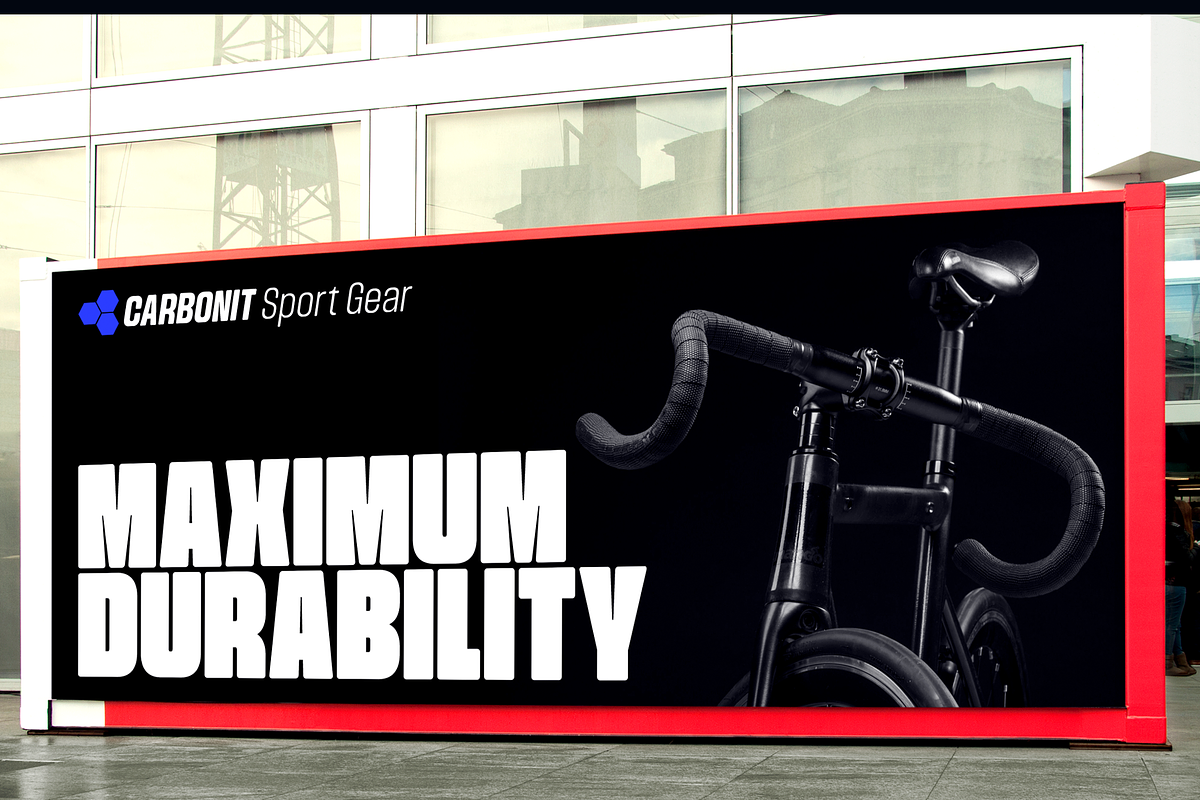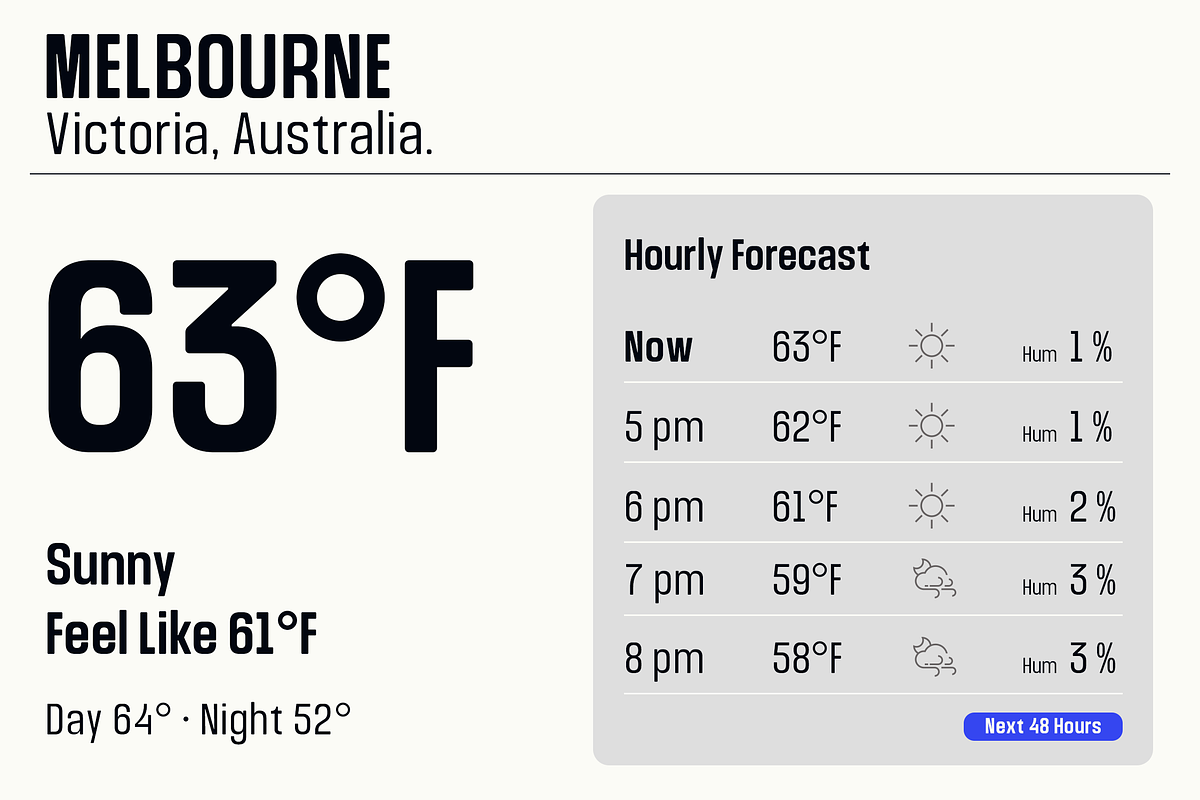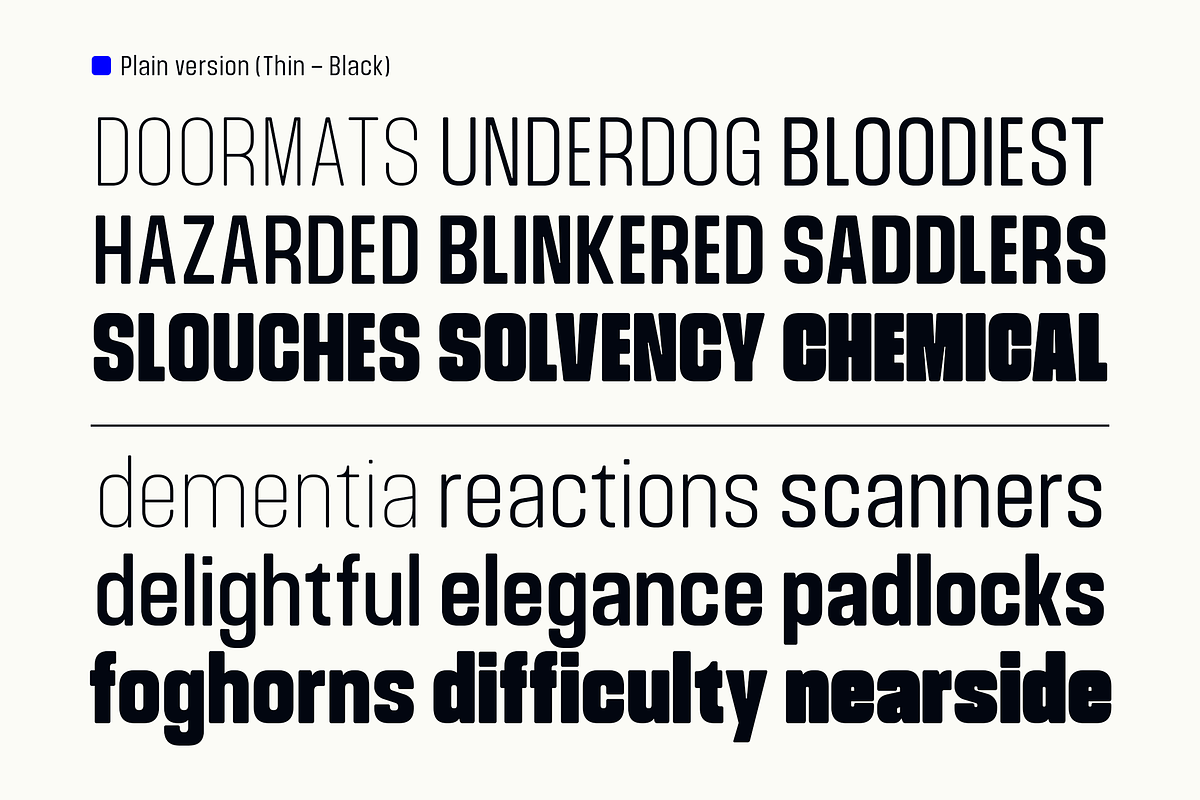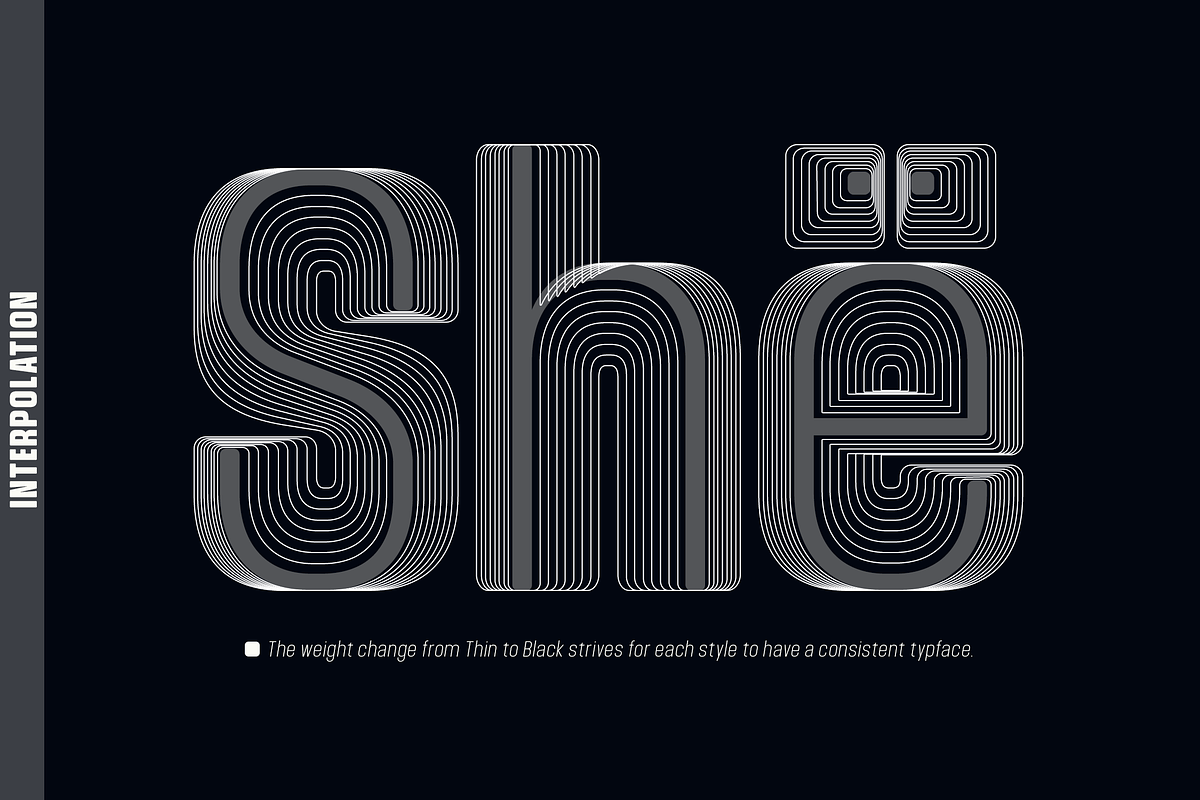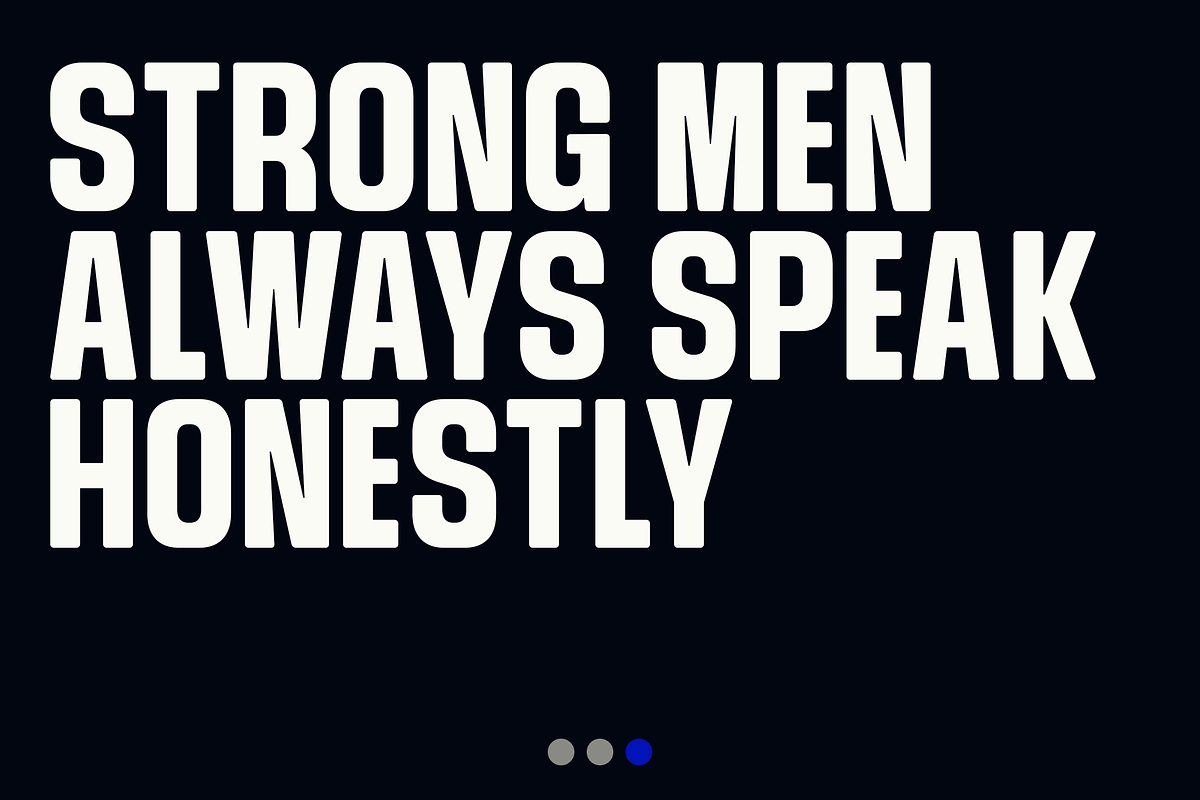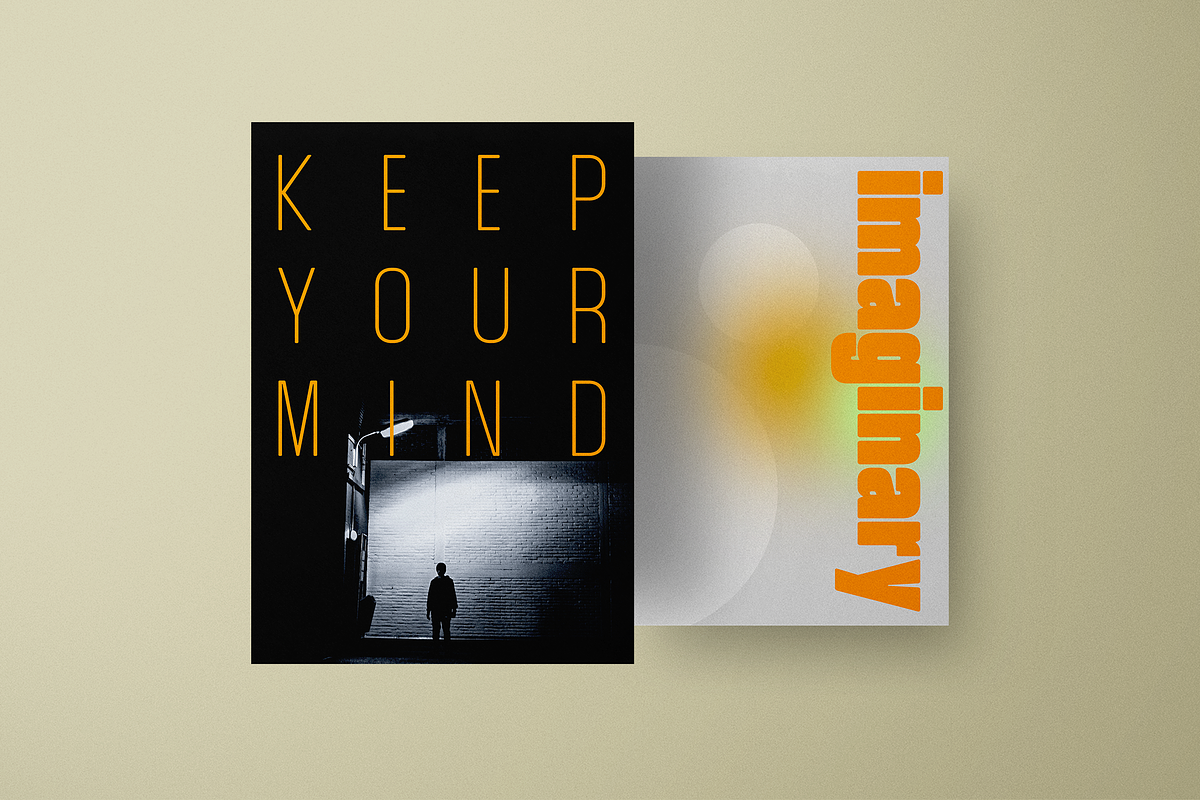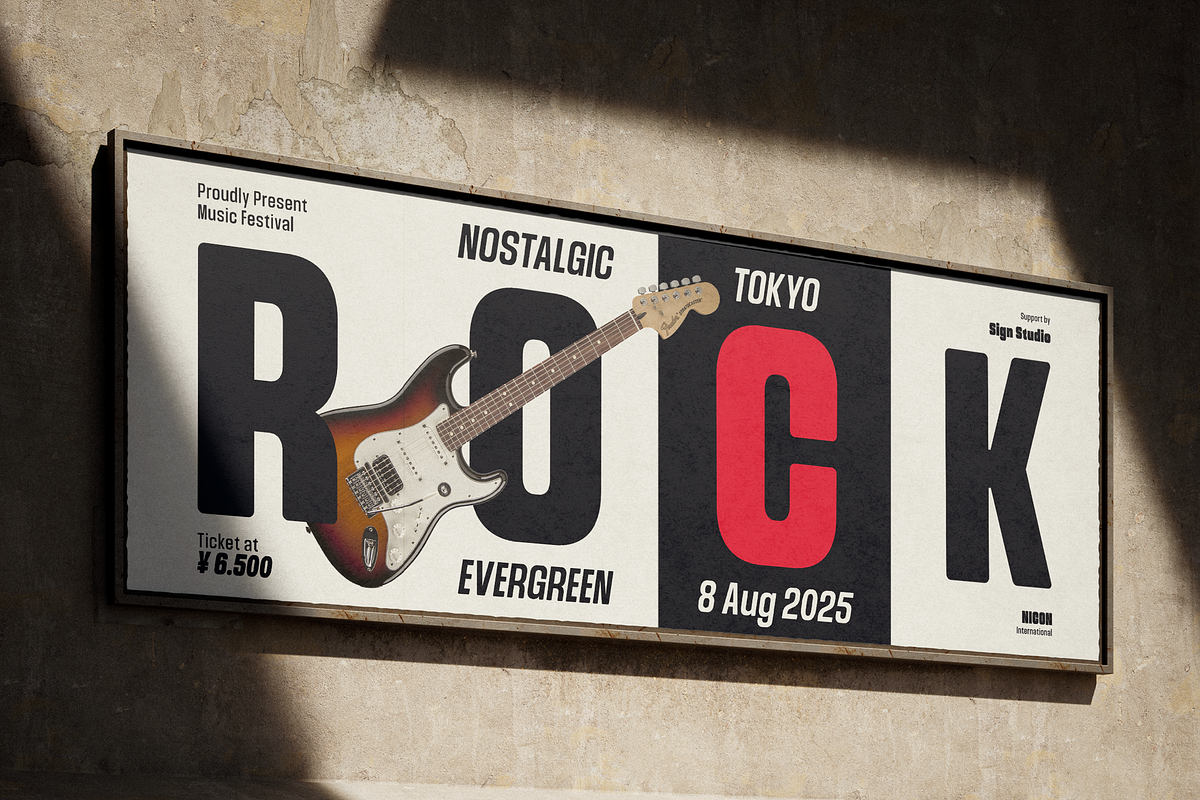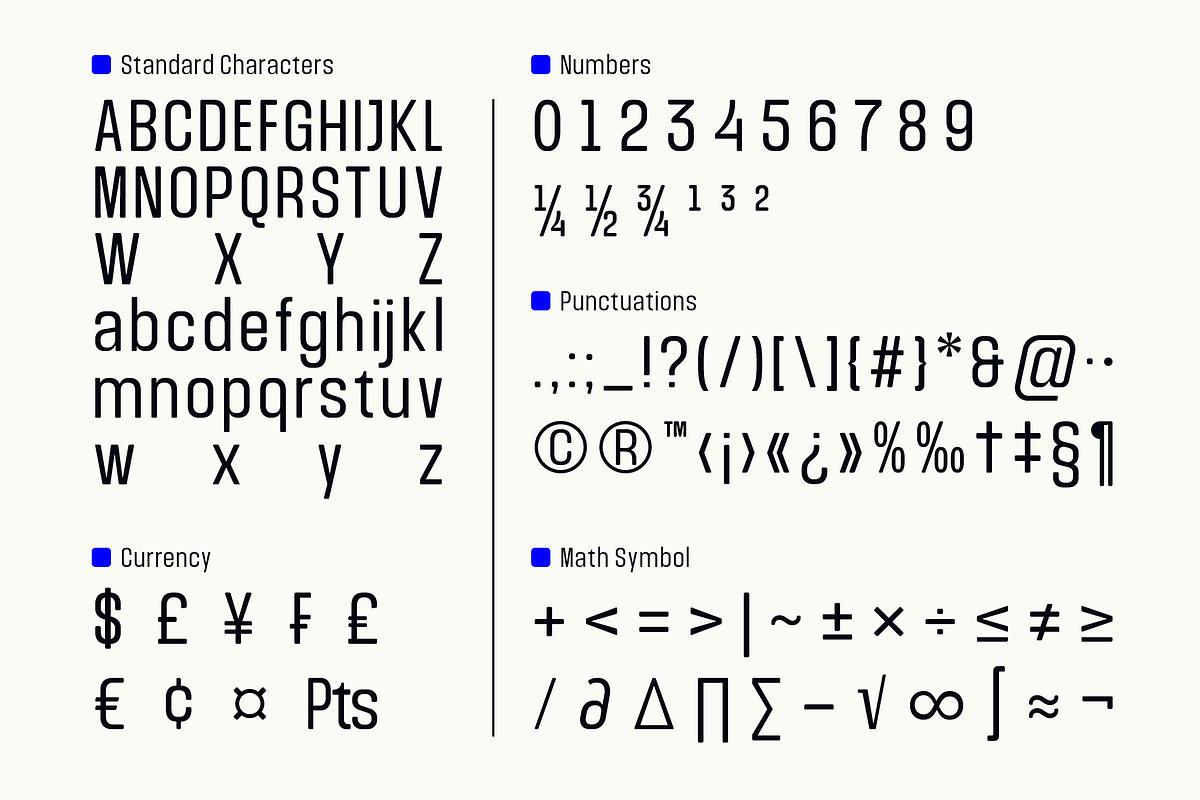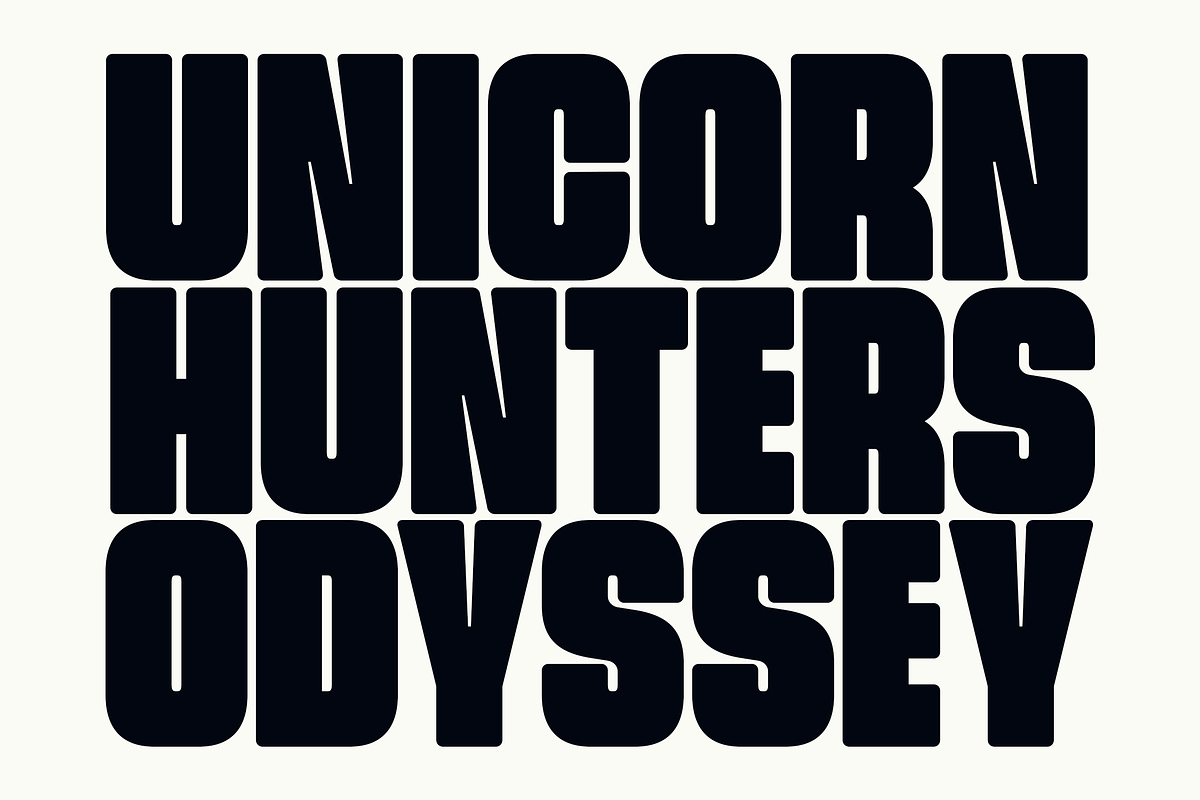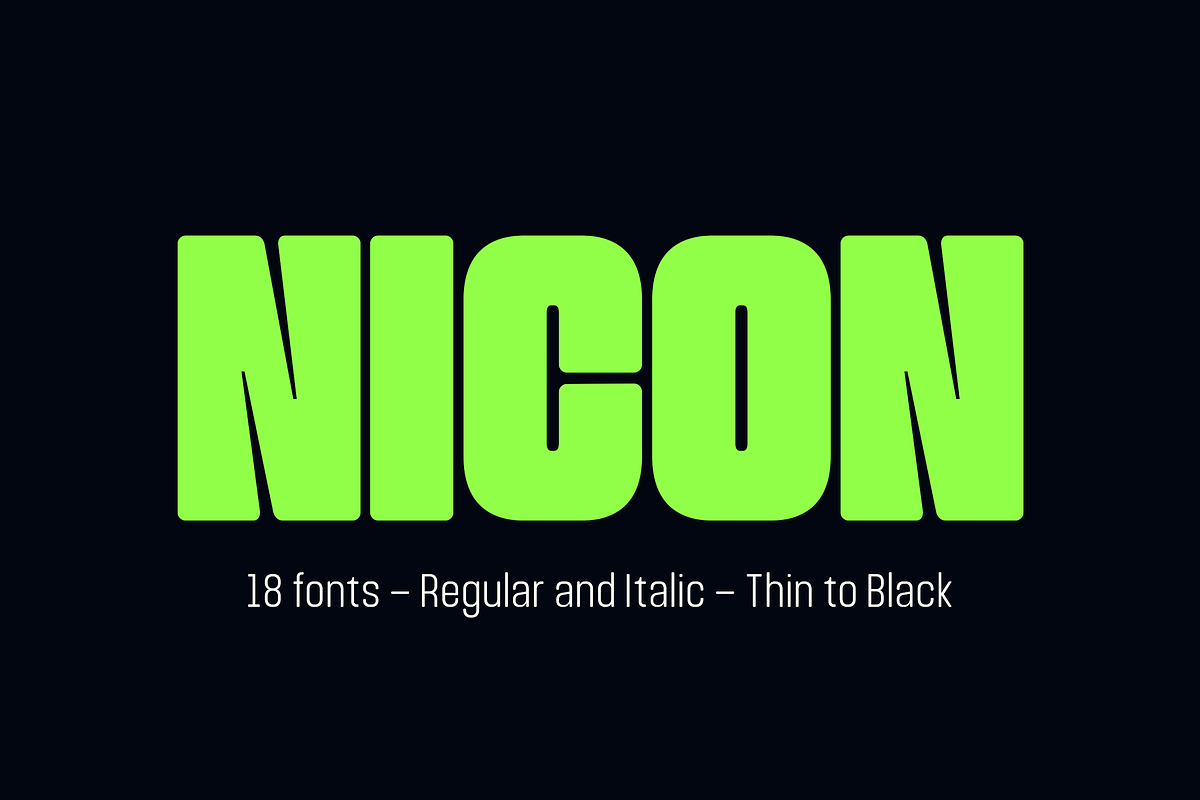
Nicon
Introducing Nicon, a sophisticated modern sans serif typeface that seamlessly blends minimalism with versatility. With its semi-condensed design, Nicon offers a striking aesthetic that can be dynamically tailored to suit a wide range of creative needs. This exceptional typeface family features nine distinct weights, each available in a unique 9-degree beveled version, providing designers with the flexibility to craft compelling branding elements that stand out.
Nicon’s elegant and refined style ensures high legibility, making it ideal for both print and digital applications. Whether you’re designing a sleek website, an eye-catching poster, or a memorable logo, Nicon adapts effortlessly, enhancing your message with a contemporary flair. Plus, its extensive language support—covering over 90 languages—ensures that your designs can reach a global audience without sacrificing style.